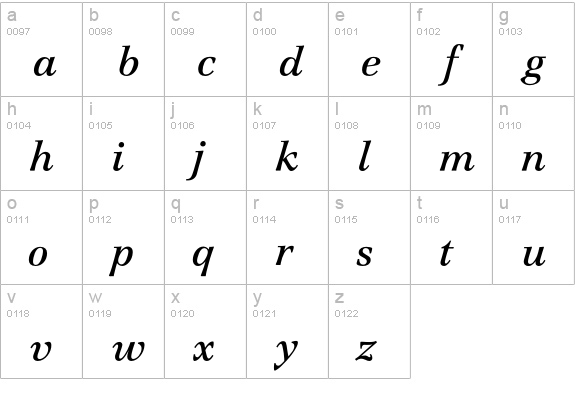
JamilleBookItalic Font Details
Introducing JamilleBookItalic font, a beautiful and versatile typeface that exudes elegance and sophistication. This font is perfect for adding a touch of class to any design project, whether it be in print or digital media. With its sleek and slender strokes, JamilleBookItalic font brings a sense of grace and refinement to your typography. Its cursive style effortlessly flows across the page, creating a harmonious balance between legibility and artistic expression. The versatility of JamilleBookItalic font is truly remarkable. It seamlessly adapts to a wide range of design applications, from formal invitations and wedding stationery to branding materials and editorial layouts. Its timeless appeal makes it suitable for both contemporary and classic designs, ensuring that it remains relevant for years to come. And the best part? JamilleBookItalic font is absolutely free! That's right, this exceptional typeface is freely available to download at FontsMarket.com. You can now enhance your designs without breaking the bank, allowing you to allocate your budget to other important aspects of your project. So why wait? Elevate your designs with the exquisite charm of JamilleBookItalic font. Download it for free today at FontsMarket.com and let your creativity soar to new heights.